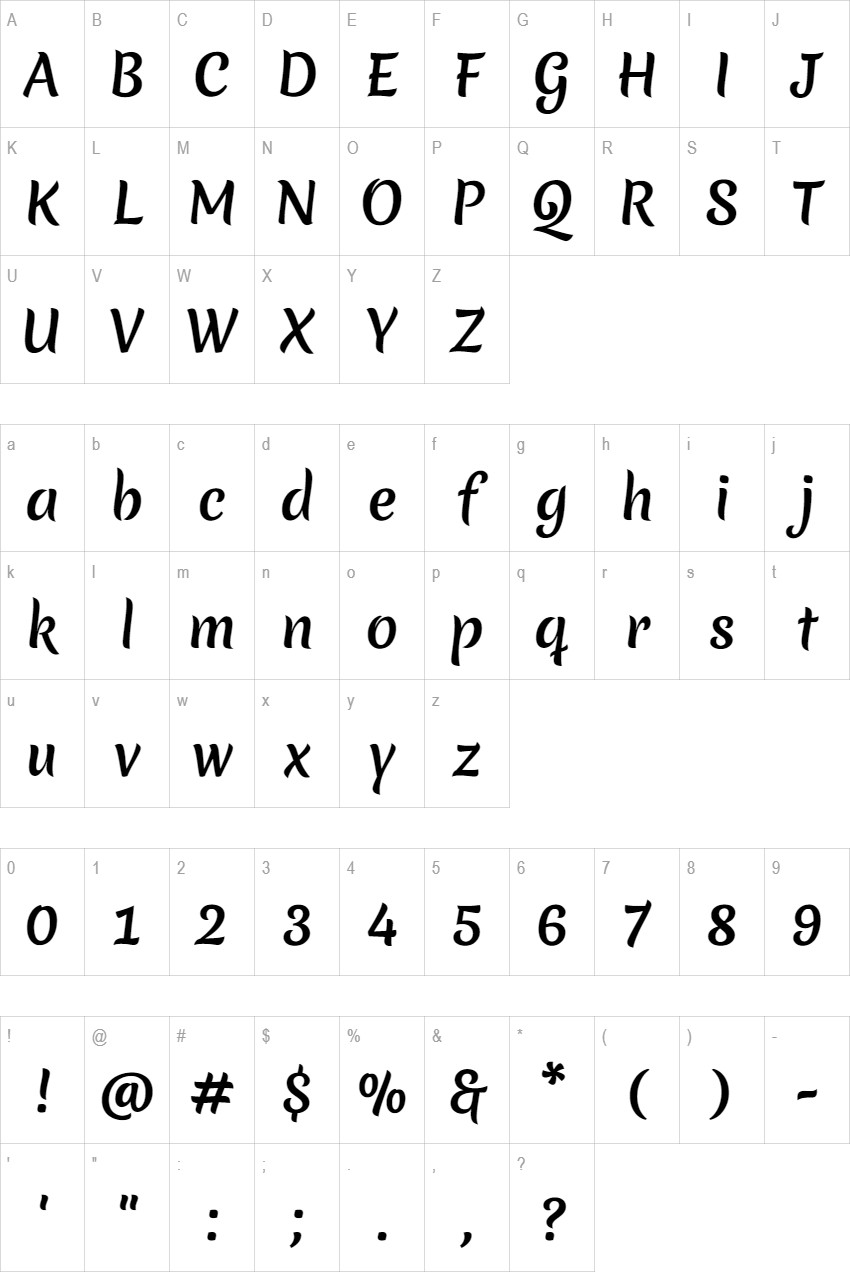
Merienda One Font
Merienda One Font - In september 2022, the font is updated as a. Web about merienda one regular font. Web merienda one is the initial publication of this typeface family in a single boldstyle. Category script , cursive , smooth.
In september 2022, the font is updated as a. Category script , cursive , smooth. Web about merienda one regular font. Web merienda one is the initial publication of this typeface family in a single boldstyle.
Category script , cursive , smooth. In september 2022, the font is updated as a. Web merienda one is the initial publication of this typeface family in a single boldstyle. Web about merienda one regular font.
Merienda One free font
Web merienda one is the initial publication of this typeface family in a single boldstyle. In september 2022, the font is updated as a. Category script , cursive , smooth. Web about merienda one regular font.
Merienda One font
Category script , cursive , smooth. In september 2022, the font is updated as a. Web about merienda one regular font. Web merienda one is the initial publication of this typeface family in a single boldstyle.
In september 2022, the font is updated as a. Web about merienda one regular font. Web merienda one is the initial publication of this typeface family in a single boldstyle. Category script , cursive , smooth.
Web merienda one is the initial publication of this typeface family in a single boldstyle. Category script , cursive , smooth. Web about merienda one regular font. In september 2022, the font is updated as a.
Category script , cursive , smooth. Web about merienda one regular font. In september 2022, the font is updated as a. Web merienda one is the initial publication of this typeface family in a single boldstyle.
Web about merienda one regular font. Web merienda one is the initial publication of this typeface family in a single boldstyle. In september 2022, the font is updated as a. Category script , cursive , smooth.
Merienda One uppercase
Web about merienda one regular font. Web merienda one is the initial publication of this typeface family in a single boldstyle. Category script , cursive , smooth. In september 2022, the font is updated as a.
Category script , cursive , smooth. In september 2022, the font is updated as a. Web about merienda one regular font. Web merienda one is the initial publication of this typeface family in a single boldstyle.
Web about merienda one regular font. Web merienda one is the initial publication of this typeface family in a single boldstyle. In september 2022, the font is updated as a. Category script , cursive , smooth.
Category Script , Cursive , Smooth.
In september 2022, the font is updated as a. Web merienda one is the initial publication of this typeface family in a single boldstyle. Web about merienda one regular font.